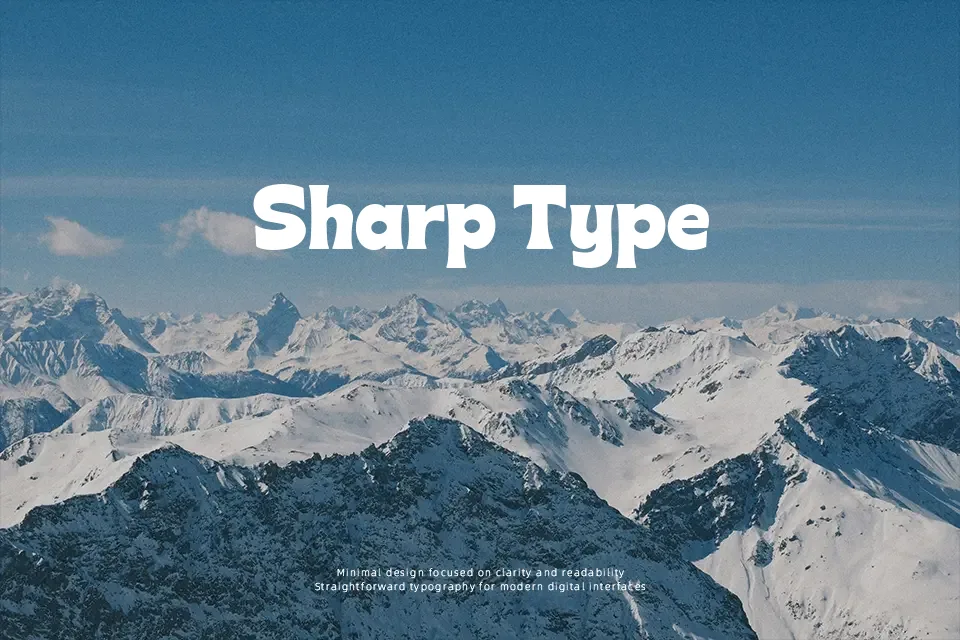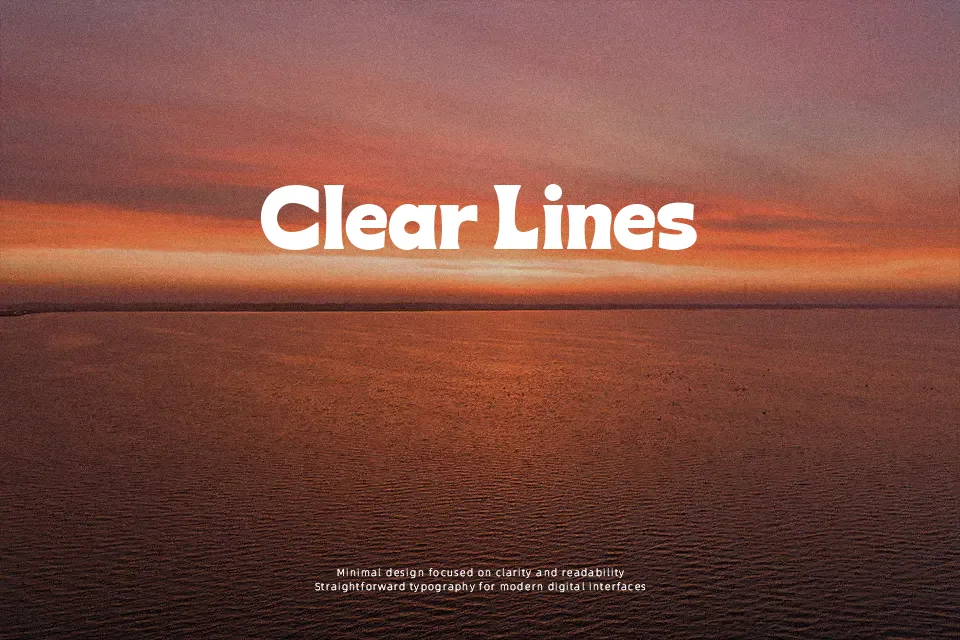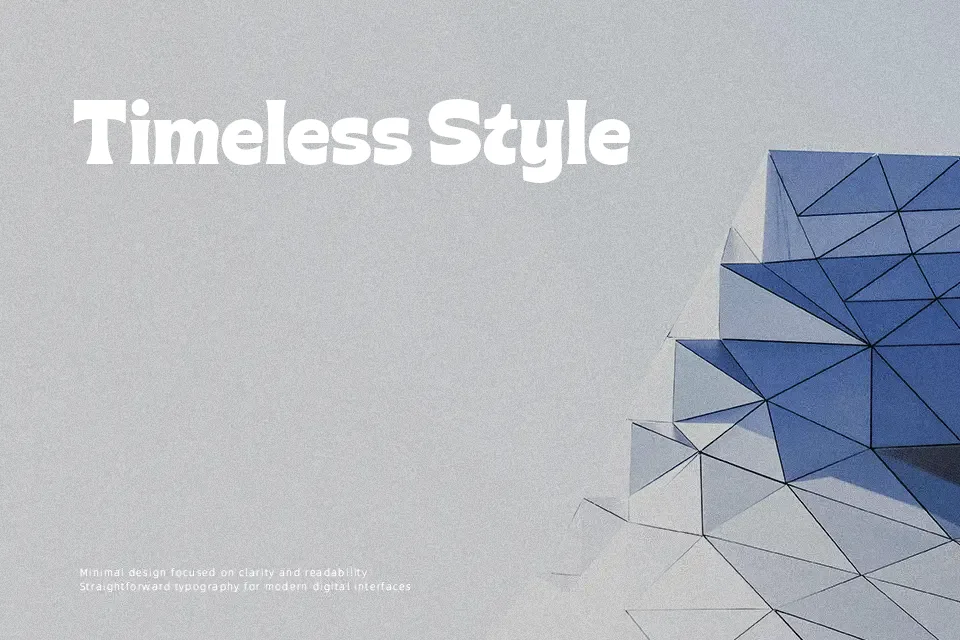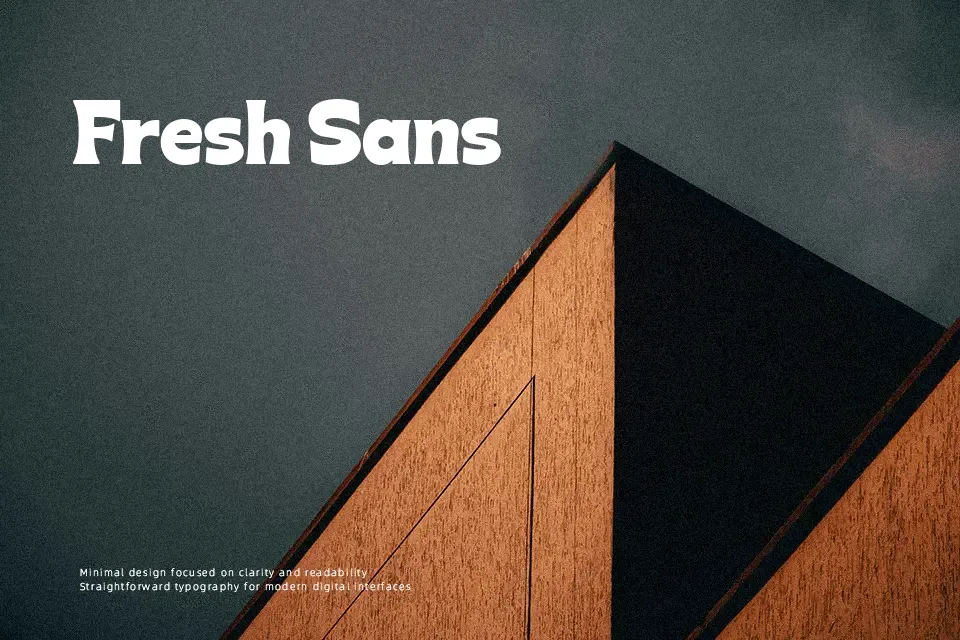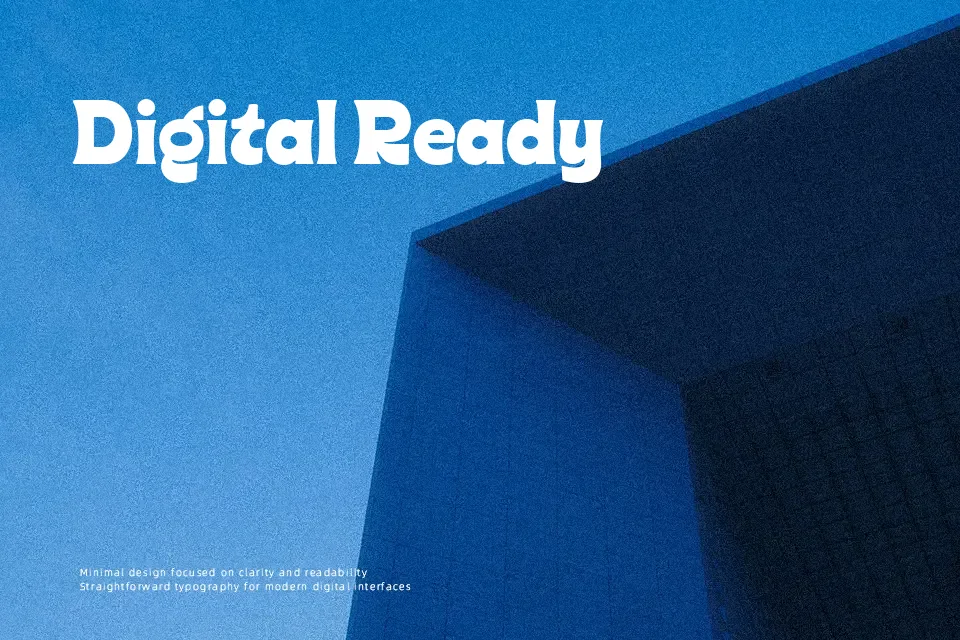
Seven Moon Font
Seven Moon Font features exaggerated stroke thickness, fluid rounded terminals, and compact letter proportions that command immediate attention. The character spacing is set relatively tight to create unified typographic blocks, giving titles a grounded, energetic rhythm. Uppercase forms exhibit solid structural balance, while the lowercase glyphs maintain distinct curves that remain legible in medium to large display settings. This design works exceptionally well for streetwear graphics, music festival flyers, and artisan food packaging. However, the heavy strokes and narrow counter spaces reduce legibility in continuous reading environments, making the typeface unsuitable for extended editorial paragraphs or compact mobile interfaces.
Best For: vintage product packaging, music festival posters, streetwear apparel graphics, cafe branding headlines
Not Ideal For: long paragraph text, mobile app interfaces, dense book typography, spreadsheet data